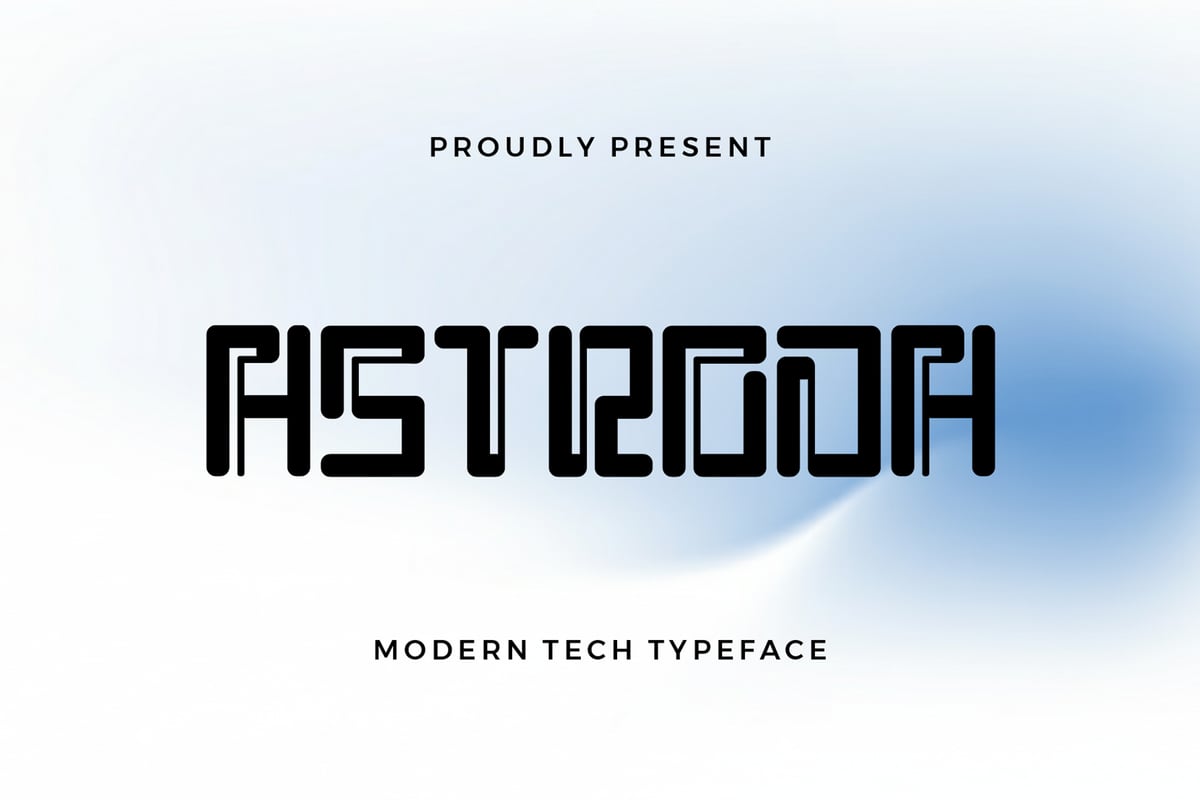
Astroda
Astroda is a modern tech geometric font designed for the future of digital creativity. Its clean structure and bold modular forms create a seamless balance between innovation and precision. With rounded corners and sharp internal cuts, Astroda represents the intersection of technology, architecture, and minimalism — perfect for projects that demand a sleek, forward-looking identity. Inspired by futuristic interfaces, cyber technology, and digital motion, every letter in Astroda feels engineered